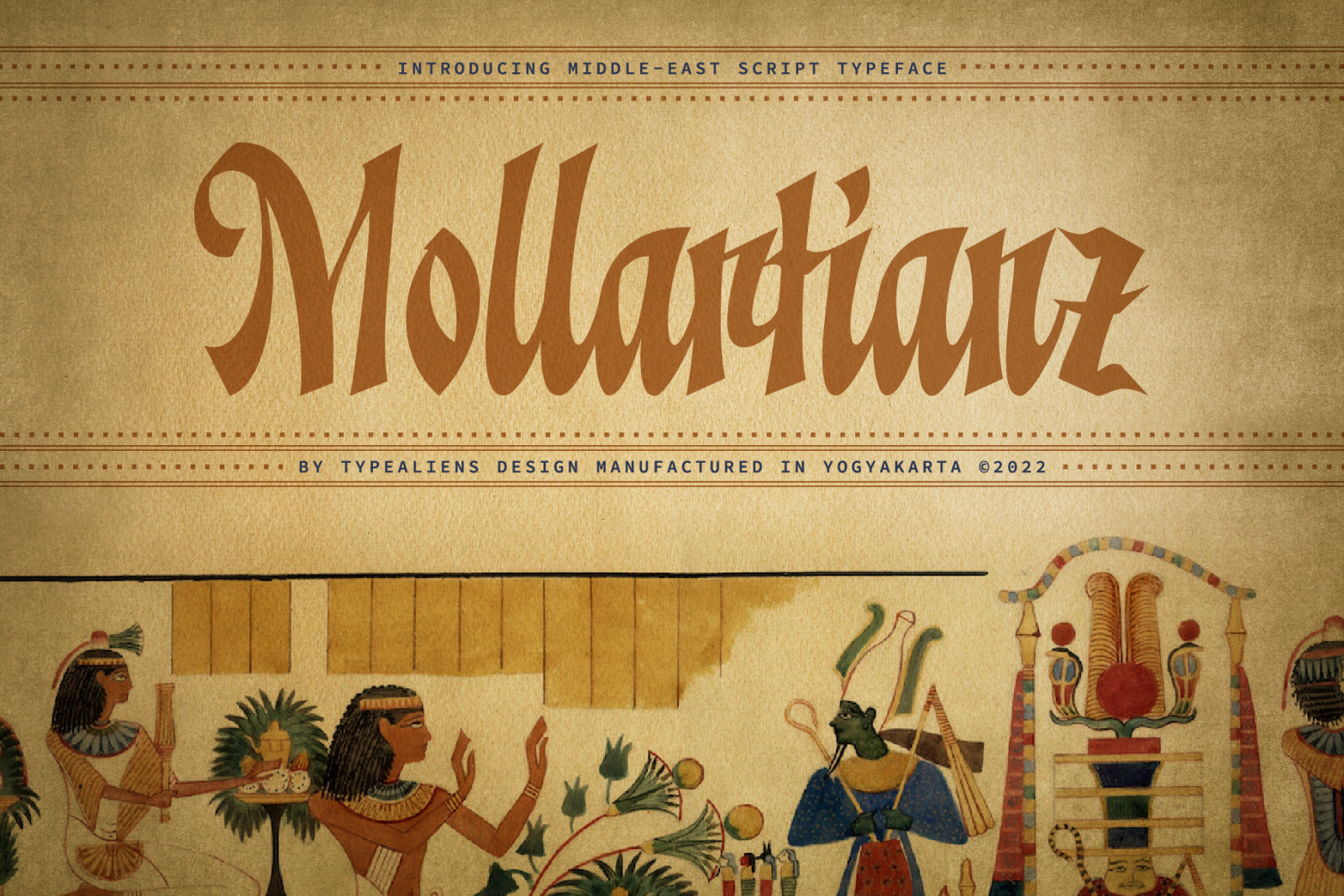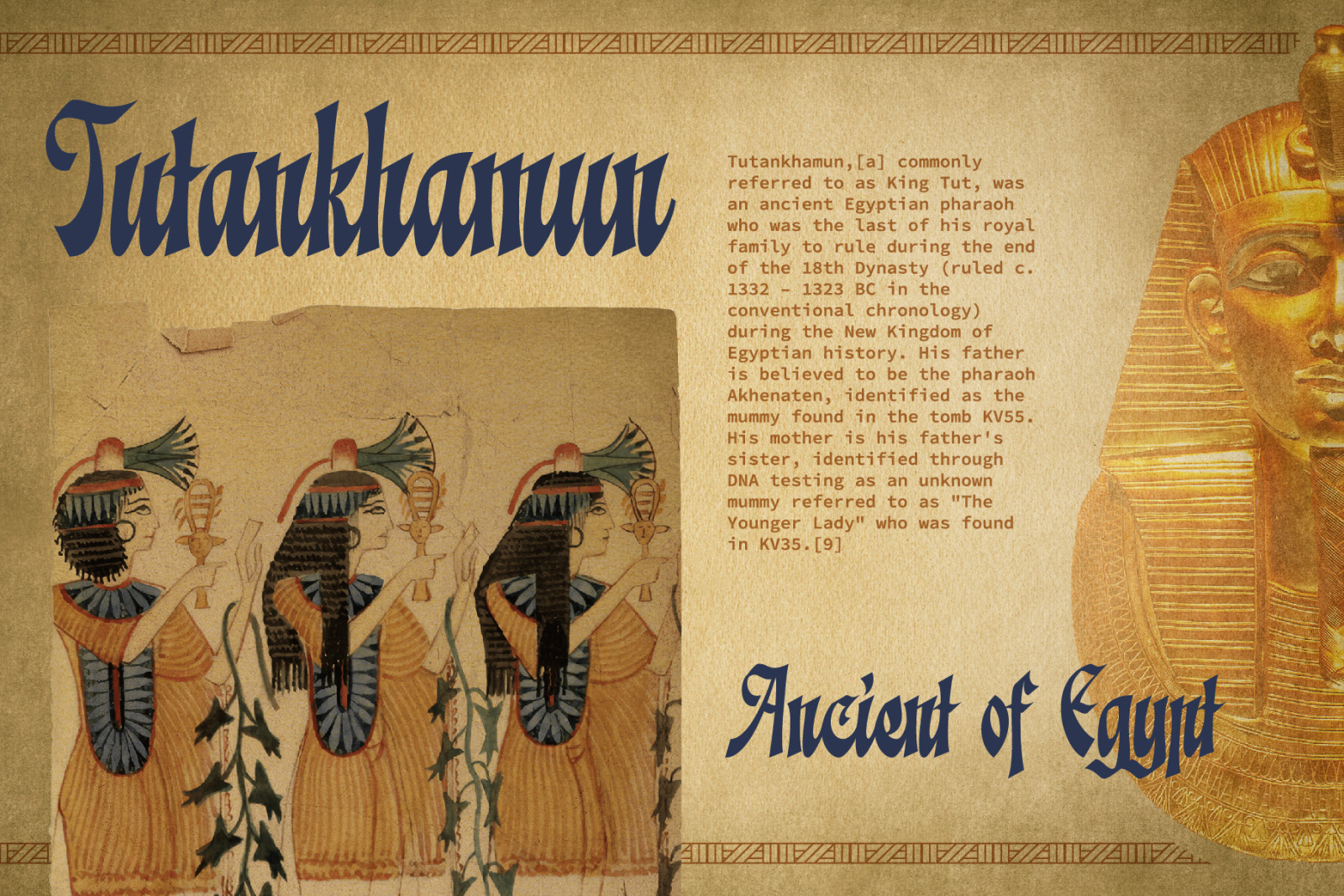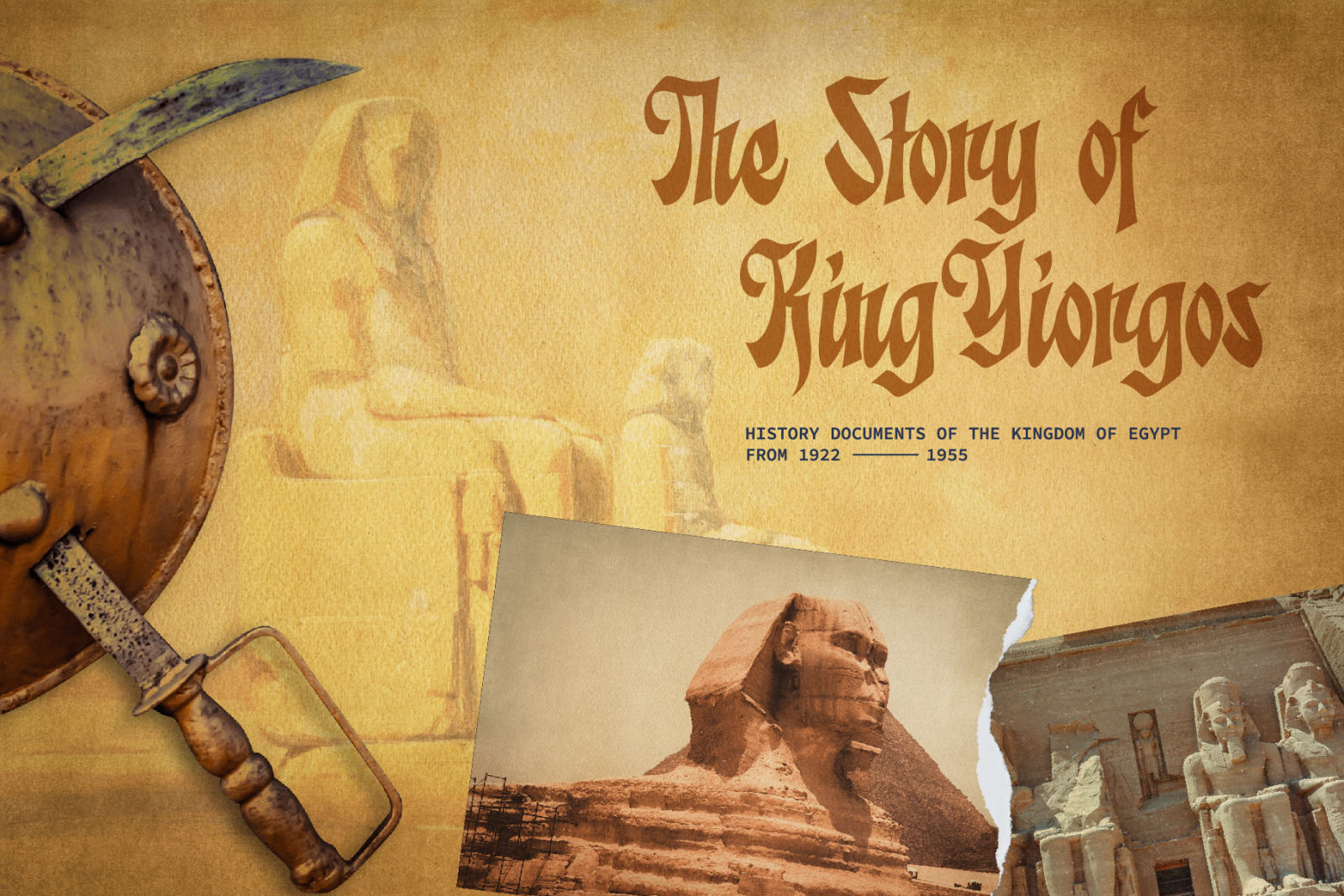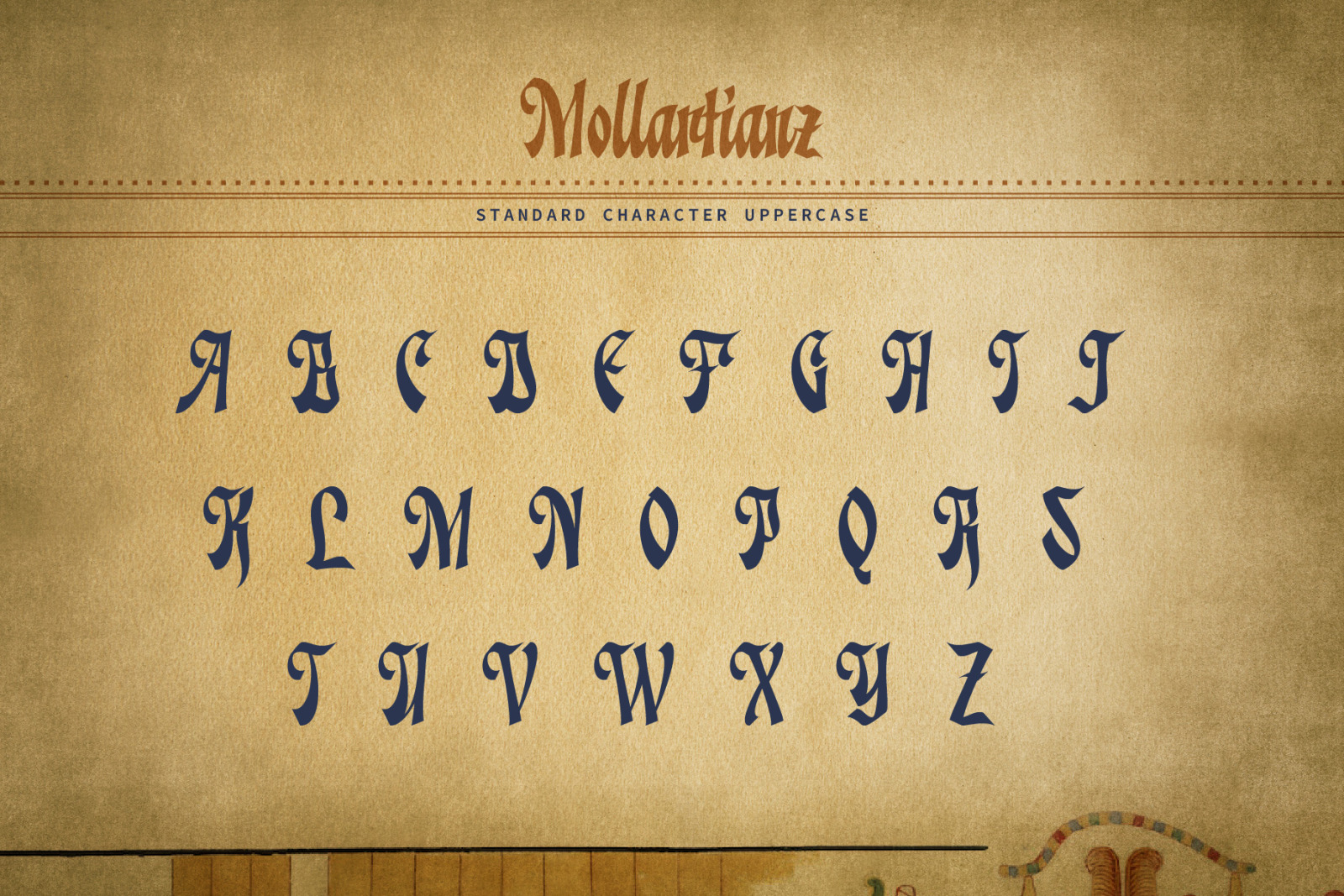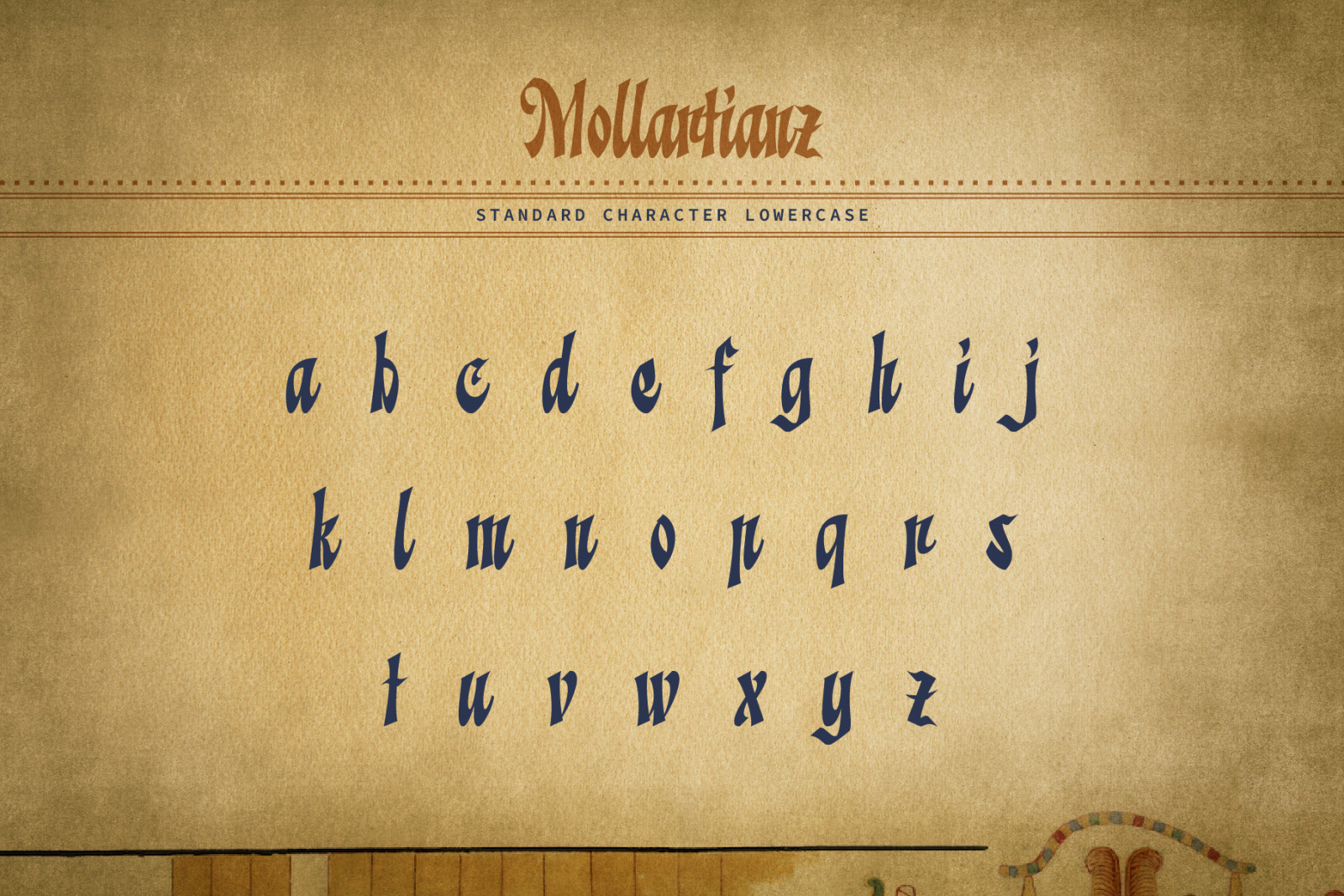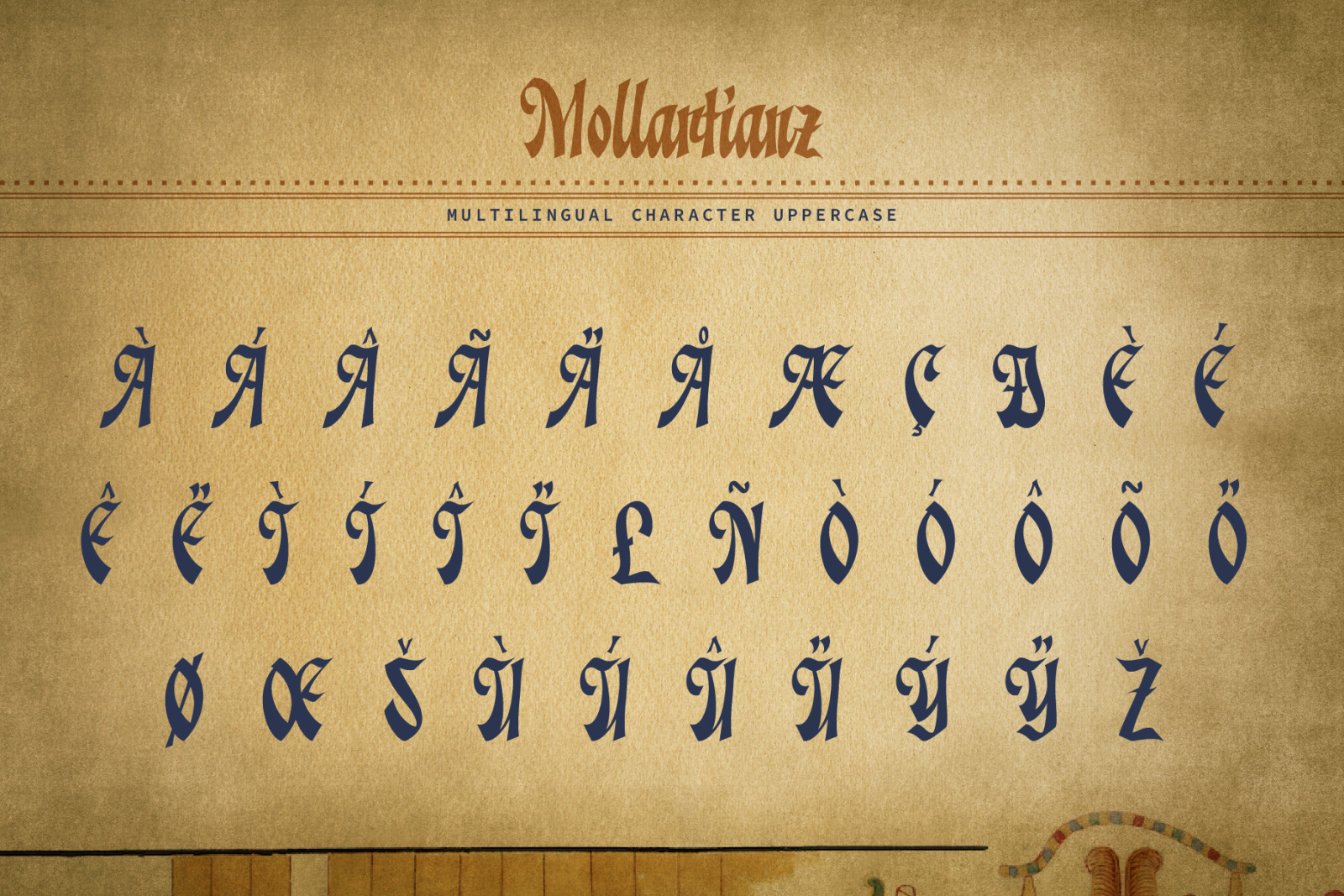
Mollartianz Font
MOLLARTIANZ is a font with middle eastern style inspiration, but can support both vintage and modern designs, but actually the typeface style is vintage which is flexible because it is also suitable for unique modern designs.
The basic font is from a modified script combined with a calligraphy style whose strokes use a flat pen to produce a beautiful but sharp font style.